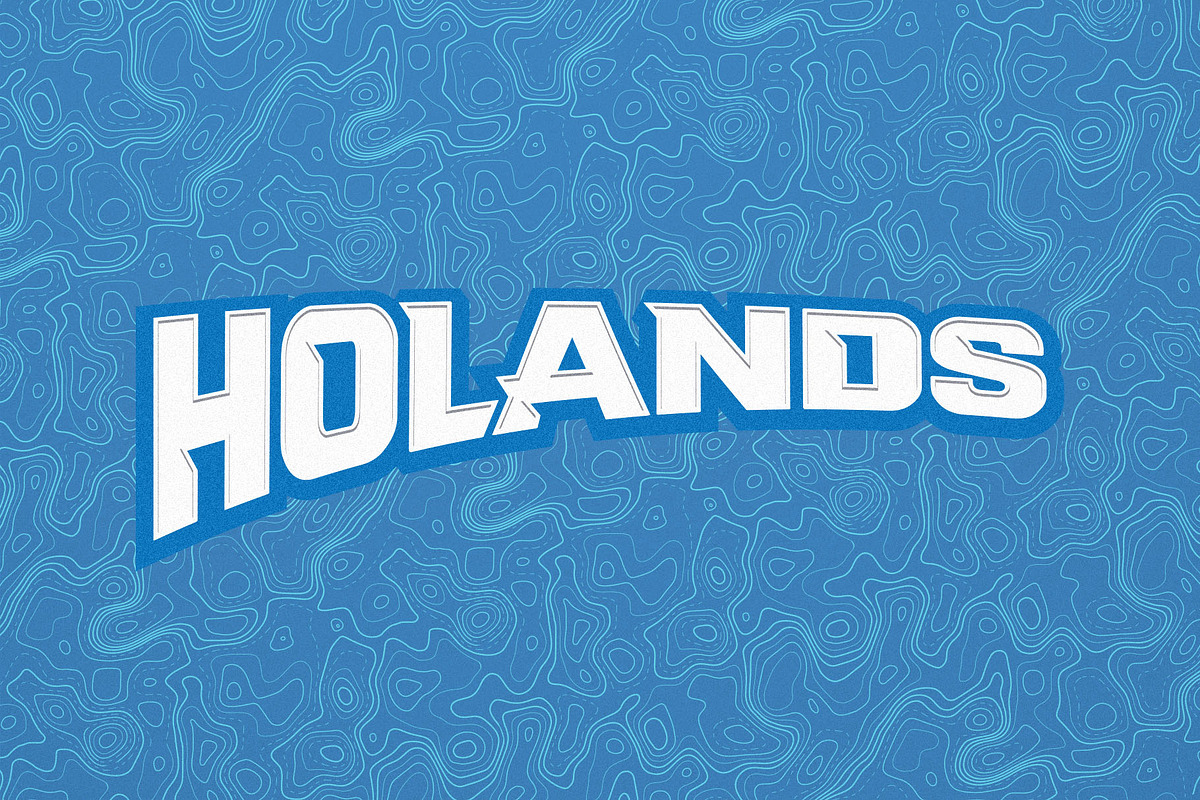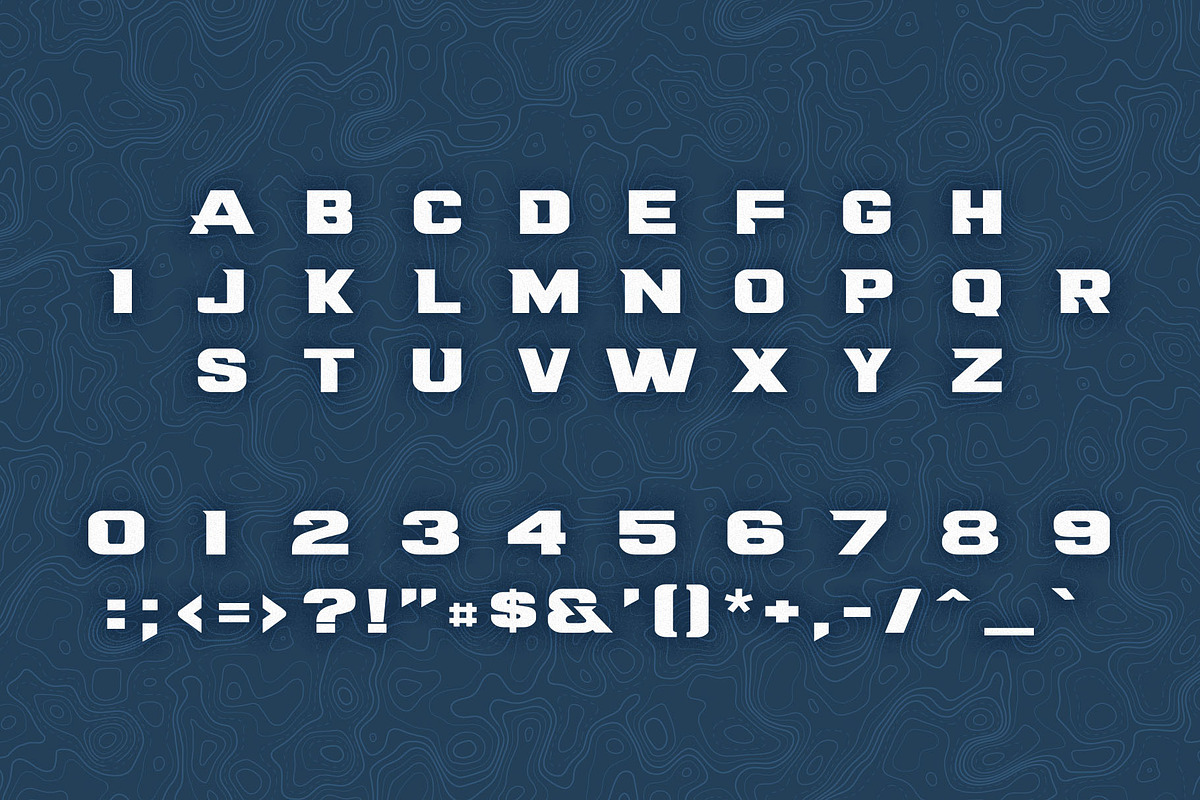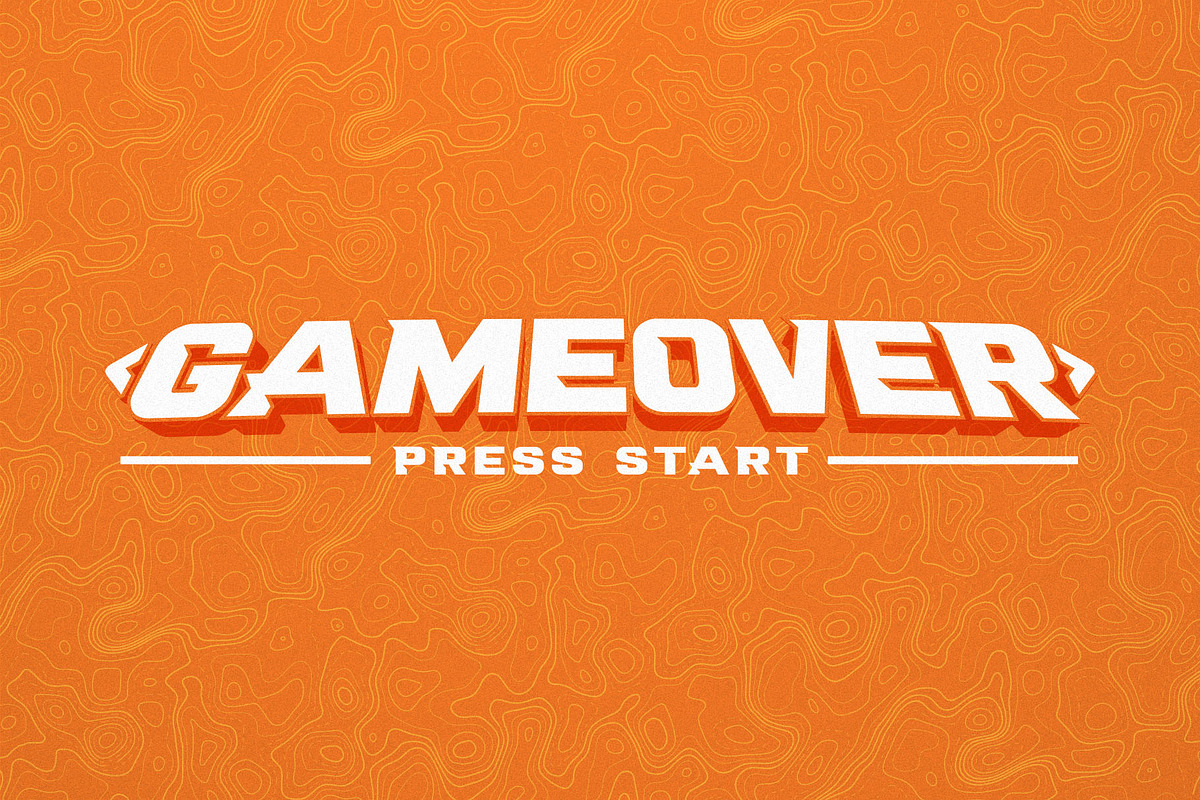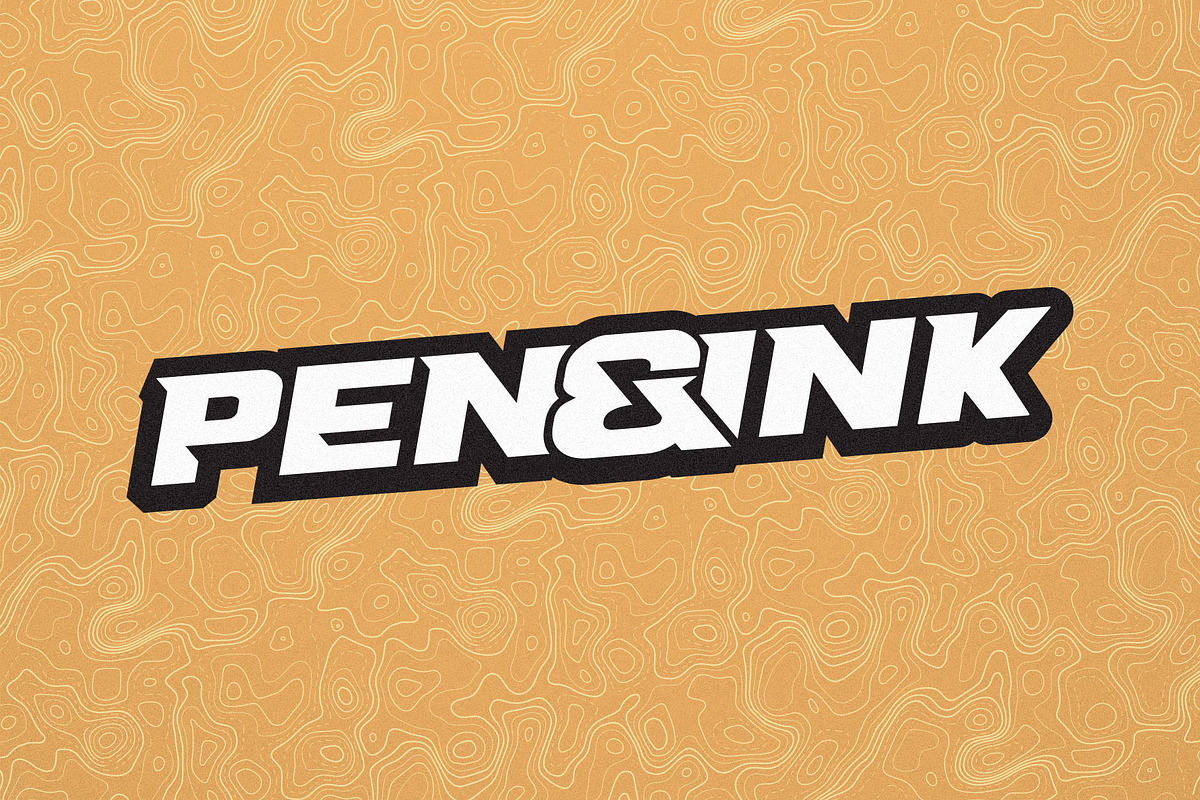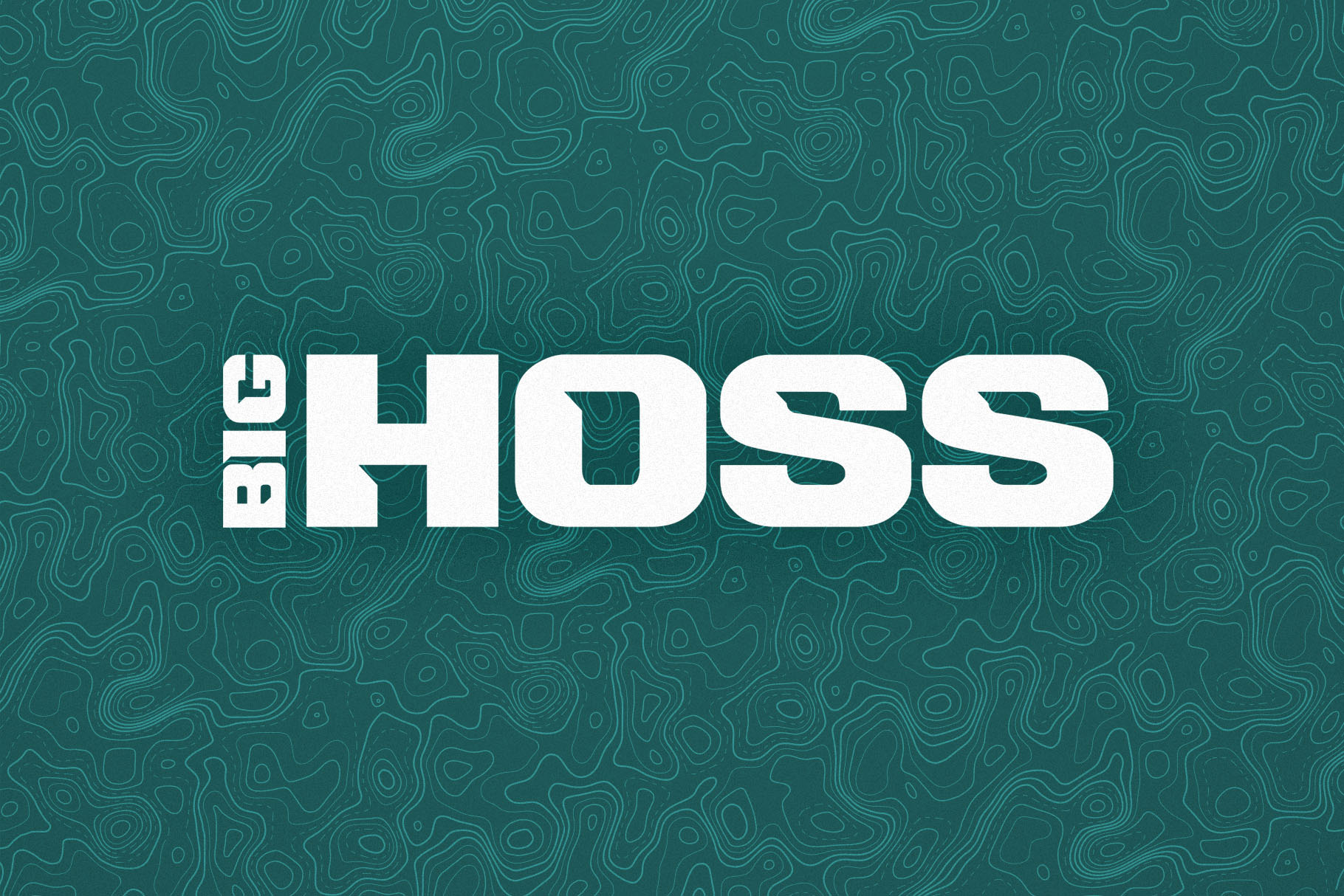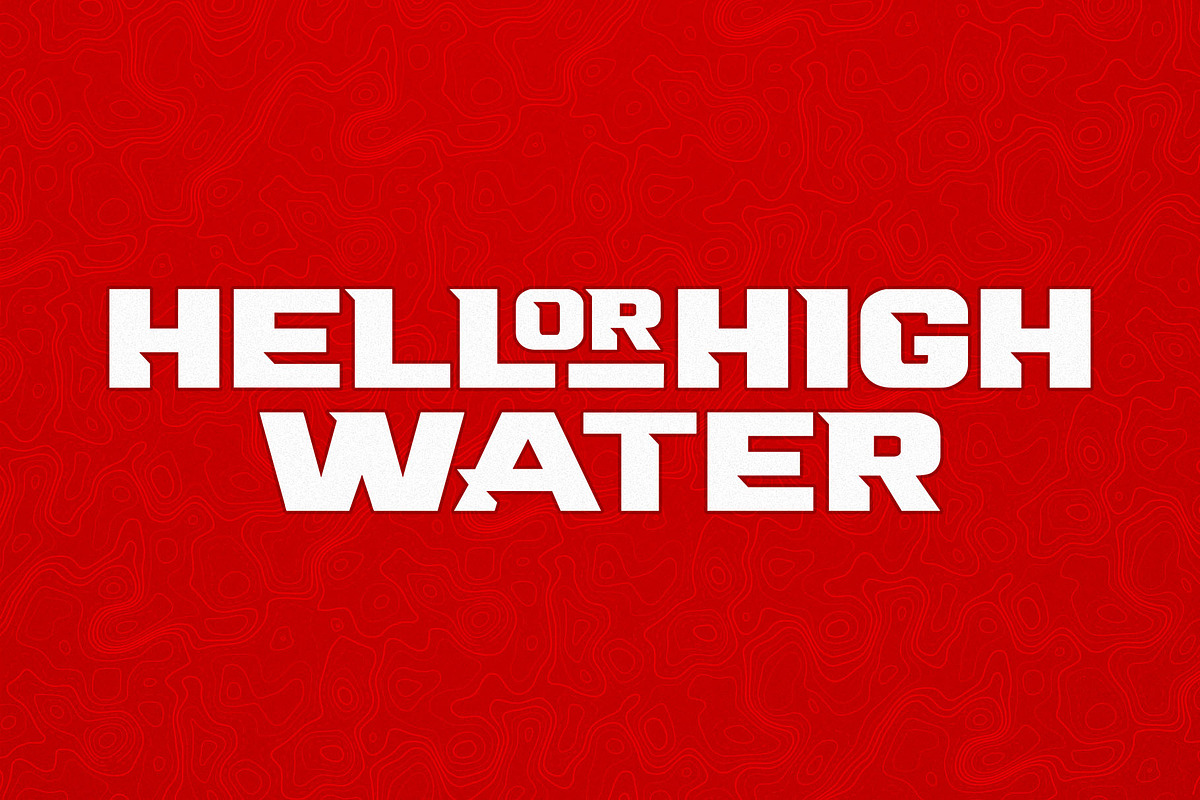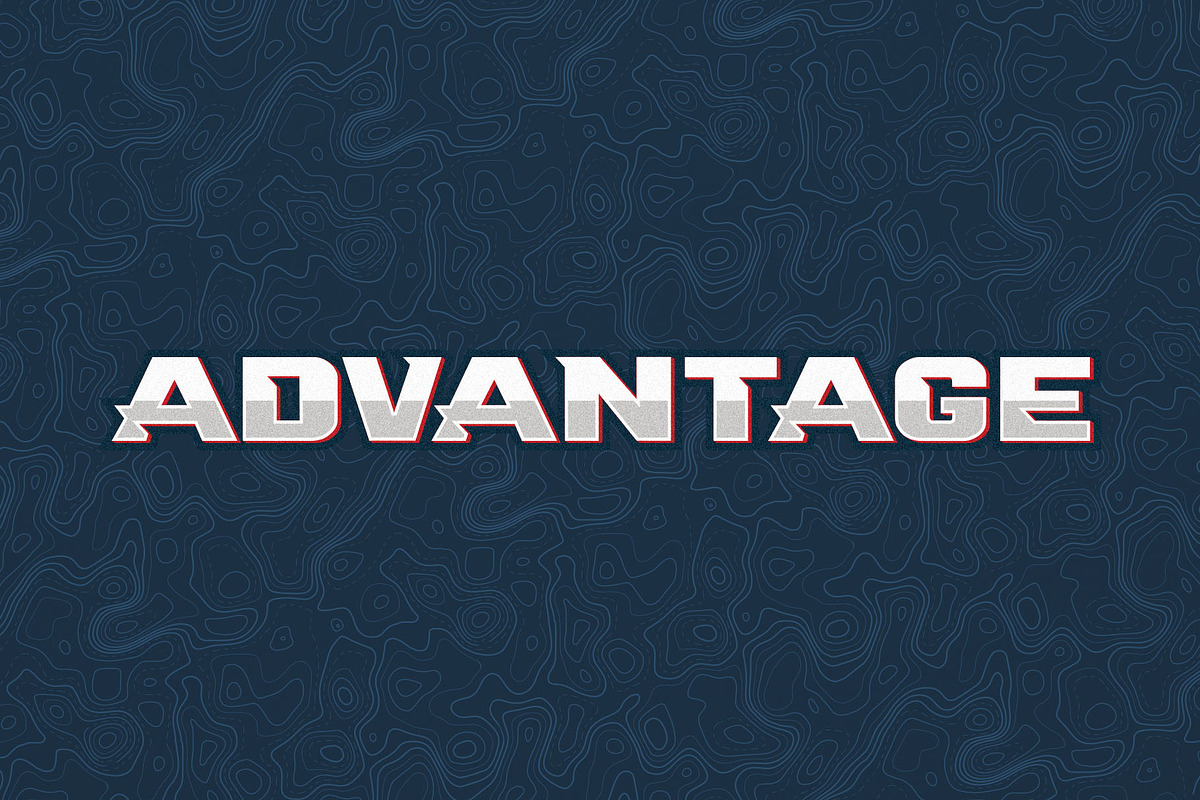
Big Hoss Display Font
Big Hoss is a fully-kerned titlecase display typeface built for the heavy sports use. Big Hoss display font features aggressive slices taken out of its bold fat letters. With it’s heavy footprint, Big Hoss is the perfect typeface for headlines, packaging, social media posts, general advertising, and many other platforms.